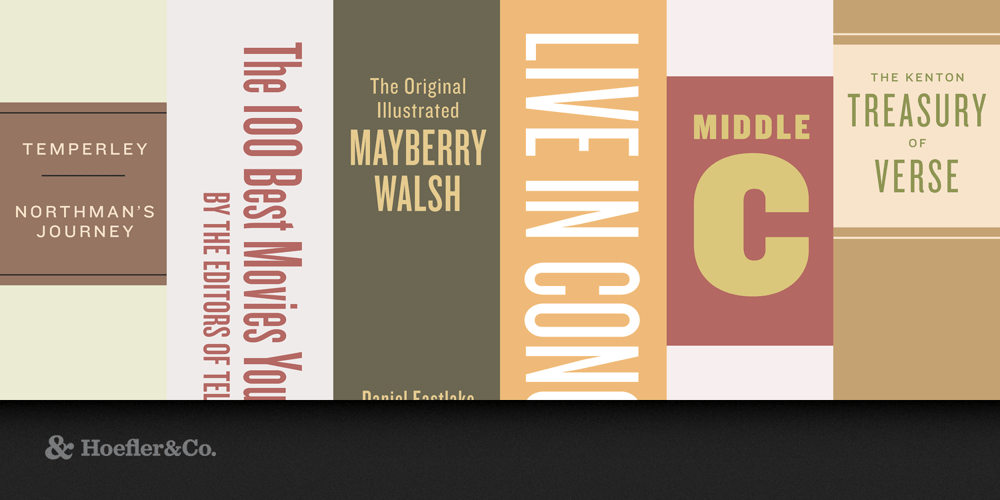
Knockout
Knockout font
Knockout Font Family was designed by Jonathan Hoefler and published by Hoefler & Co.. Knockout contains 67 styles and family package options. A sweeping collection of 32 sans serifs, Knockout restores some much-needed vitality to an overlooked corner of the typographic spectrum. The Knockout typeface was designed by Jonathan Hoefler in 1994. A reimagining of Hoefler’s earlier Champion Gothic headline series (1991), Knockout is an interpretation of the motley sans serifs that supplied American job printers starting in the late nineteenth century. Its thirty-two styles reference both the tall, condensed wood types used for posters, and the miniature ‘engraver’s faces’ once used for stationery. A prominent effort in the preservation of American vernacular typography, Knockout first appeared in the pages of The New York Times Magazine in 1994. From the desk of the designer: The notion of the “type family” is so central to typography that it’s easy to forget how recent an invention it is. Throughout most of its history, typography simply evolved the forms that were the most useful and the most interesting, generally with indifference toward how they related to one another. Italic faces existed for decades before they were considered as companions for romans, just as poster types shouted in a range of emphatic tones before they were reimagined as “bold” or “condensed” cousins. The notion that a type family should be planned from the outset is a Modernist concoction, and it’s one that type designers have lived with for less than a century. The organization of typefaces by weight and width may be one of Modernism’s great gifts to typography, but the expectation that fonts should cohere to some prefabricated schedule of styles is one of its greatest fallacies. Demanding that every typeface march to the drumbeat of roman, italic, bold, bold italic is an arbitrary imposition on a naturally diverse world; in other professions, this kind of universalist thinking gives us brutalist worker housing, or prairies planted with monocultures. Knockout defies the Modernist canon, in order to reclaim one of typography’s great natural wildernesses: the American sans serif. For more than a century before Helvetica, the sans serif landscape was dominated by unrelated designs. Gothic woodtypes in a dazzling array of proportions lived comfortably alongside anonymous foundry types, each design’s integrity the product of its autonomy. Because none of these faces were intended to relate to one another, none of their design characteristics were beholden to any external constraints: what worked for a supercondensed boldface need only work for that design, not also for the extrawide light face whose design afforded different possibilities and faced different challenges. This sort of “situational” approach to type design allowed for more varied and interesting designs, and it’s this approach that Knockout celebrates. With the functional benefits of a family that’s well-organized, and the visual appeal of styles that are individually designed, Knockout’s nine-width, four-weight family offers a range of voices that’s impossible to achieve with even the best Modernist sans serifs. Featured in: Best Fonts for Logos, Best Fonts for PowerPoints